Futuristic design has become a defining visual trend across technology, gaming, entertainment, advertising, and modern branding. Whether you’re building a sci-fi interface, designing a tech startup identity, or creating digital content with a forward-looking aesthetic, typography plays a huge role in shaping the overall experience. This is where future fonts come in typefaces created specifically to evoke innovation, technology, and the world of tomorrow.
Future fonts combine geometric shapes, clean lines, sharp edges, and digital-inspired styling. They offer a sleek, visionary tone that helps designers communicate modernity and creative ambition. This article explores why future fonts matter, how they shape visual identity, where they work best, and which curated fonts from Putracetol.com can elevate your futuristic design projects.
From sci-fi movies to tech branding, future fonts help immerse audiences in a world that feels advanced, digital, and forward-thinking. Their geometric construction and sleek forms instantly communicate modernity.
Brands in technology, gaming, software, and AI benefit from a typography style that positions them as innovative and forward-looking. The fonts help these businesses appear more relevant within rapidly evolving industries.
Future fonts work across a wide range of creative projects:
Their adaptability allows designers to maintain a consistent futuristic tone across platforms.
Typography is a storytelling tool. When you want to communicate ideas like innovation, speed, intelligence, creativity, or digital culture, the fonts help establish that narrative visually.
Future fonts carry specific features that make them ideal for modern design:
These features help designers create UIs, posters, logos, or layouts that align with futuristic themes, ranging from space exploration to cyberpunk environments.
Putracetol.com offers a curated selection of futuristic fonts that are perfect for tech-forward projects. These typefaces are widely used by designers working in branding, gaming, technology, and sci-fi concepts.
Quantum Sector features sharp cuts, geometric strokes, and digital stylization. Ideal for:
Its design delivers a strong sense of innovation and engineering precision.
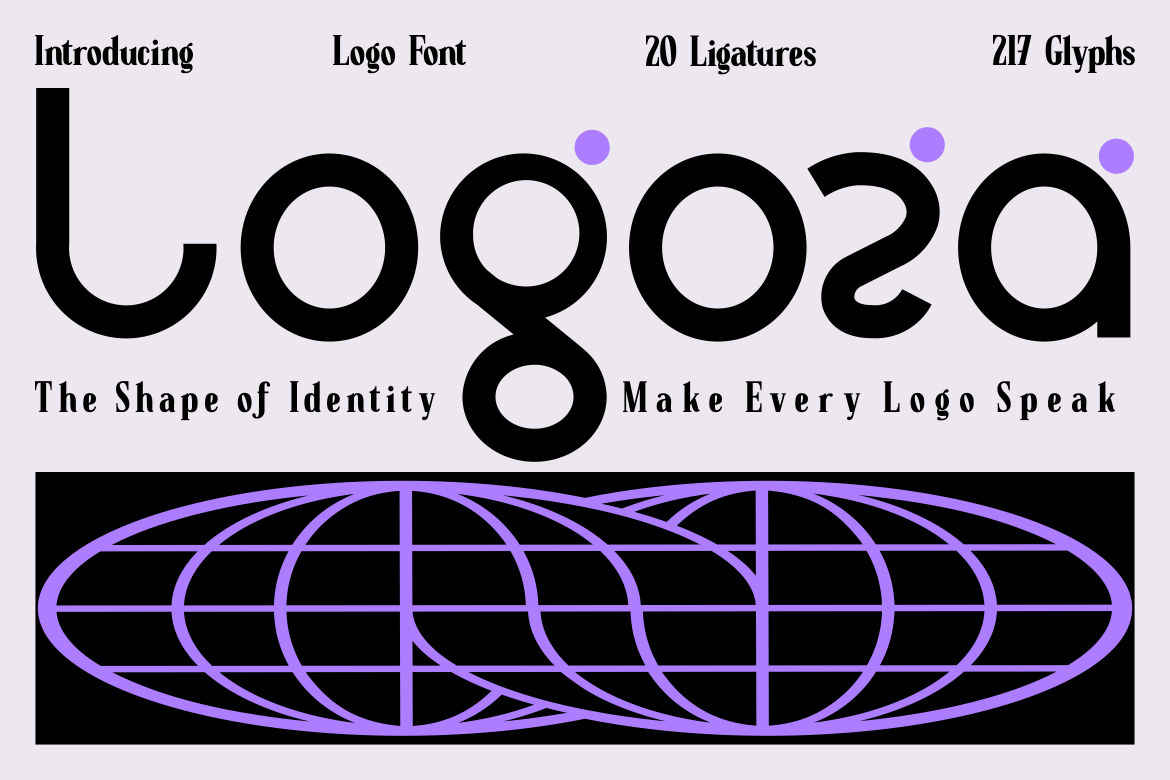
Logoza combines modern elegance with futuristic structure. It’s a versatile option for premium branding that still wants a touch of innovation. Perfect for:
Its clean lines make it suitable for both headings and logo design.
A popular choice for sci-fi interfaces and game design, Tronix delivers a strong digital personality. Ideal for themes involving:
Its structured geometry makes it instantly recognizable in high-tech layouts.
Neurobyte is designed with smooth, elegant lines that feel modern yet subtle. Perfect for:
Its simplicity enhances readability while still feeling futuristic.
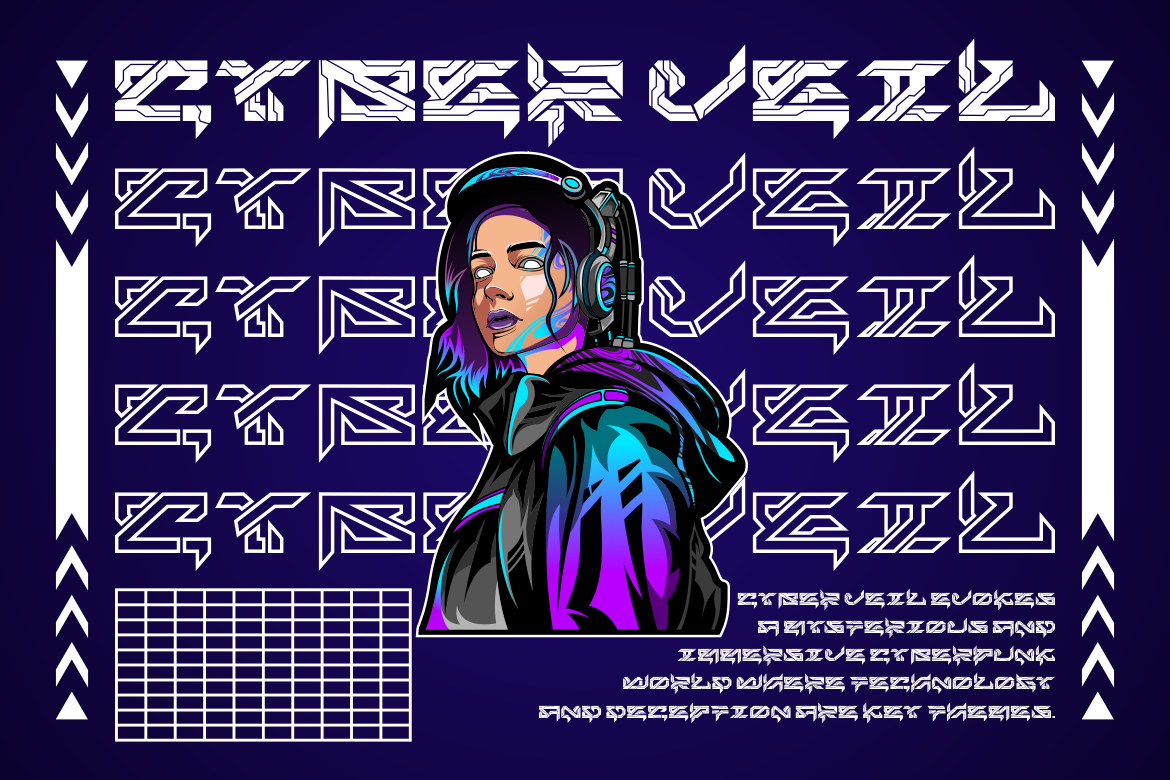
A monospaced font built for digital and cyberpunk aesthetics. Great for:
Its grid-based structure makes it ideal for interfaces and technical content.
The fonts are versatile tools that bring a forward-looking tone to many types of creative work.
Future fonts help brands communicate innovation. They create modern, sleek wordmarks for businesses in:
These fonts add a unique edge that reflects technological advancement.
UI/UX designers frequently rely on future fonts to build futuristic dashboards, landing pages, and app designs. Geometric structure ensures clarity, while digital styling enhances the overall tone.
For tech events, sci-fi movies, gaming tournaments, or futuristic products, future fonts attract attention fast. Their bold geometry instantly communicates the theme.
When presenting ideas related to technology, innovation, or digital transformation, future fonts add professionalism and alignment with the subject matter.
Tech gadgets, headphones, gaming accessories, or futuristic product lines often use future fonts to emphasize innovation and style.
Future fonts shape perception. They help creatives visually communicate themes like progress, intelligence, modern society, and digital culture. Here’s why they work so well:
Futuristic typefaces immediately tell the audience what kind of experience to expect before they even read the message.
Their unique stylization makes them different from typical sans-serif fonts used in mainstream branding.
Most future fonts are designed with screen readability in mind, making them ideal for UI/UX and multimedia projects.
Businesses that use future fonts communicate that they embrace modern thinking, technology, and forward-looking ideas.
To create strong futuristic visuals, designers should follow a few best practices:
Because of their stylized design, they shine most in titles, headlines, logos, and short labels.
Use clean sans-serif fonts for paragraphs to maintain readability and contrast.
Futuristic design thrives with simplicity. White space and structured grid systems enhance the effect.